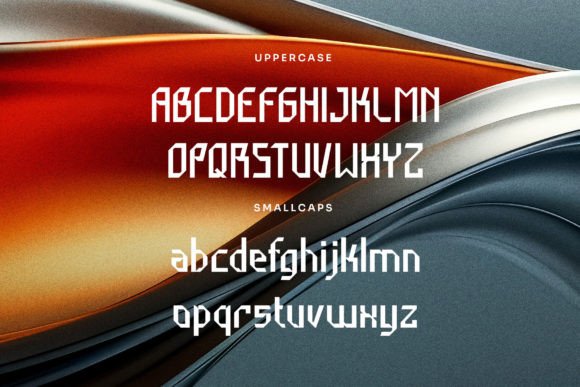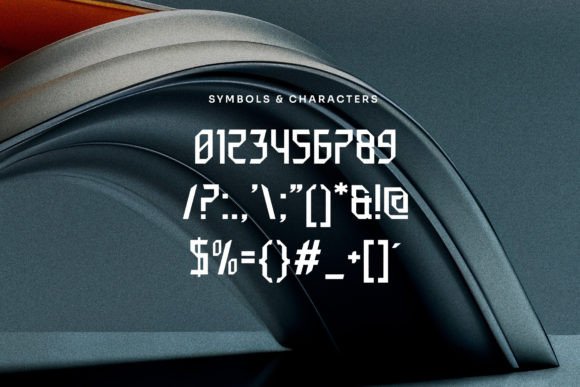
Introduction to Naxy Font Font
Fonts play a crucial role in design, and the Naxy Font font is a typeface that brings both character and versatility to any project. Whether you’re working on a branding project, a website, or a print design, the Naxy Font font offers a unique style that can elevate your work.
With elegant and geometric lines, Naxy represents the perfect fusion between form and functionality.
Its bold, angular characters bring an avant-garde touch to any project, while its futuristic aesthetic evokes images of advanced technology and innovation .
Key Features of Naxy Font Font
Why Choose Naxy Font Font?
The Naxy Font font is more than just a typeface – it’s a design tool that helps you communicate your message with style and clarity. Its unique character set and versatile design make it suitable for a wide range of applications, from elegant invitations to bold headlines.
With its carefully crafted letterforms and balanced proportions, the Naxy Font font ensures readability and visual appeal across all mediums.
What makes Naxy Font font special?
The Naxy Font font stands out with its unique design, exceptional readability, and versatility across various design applications.